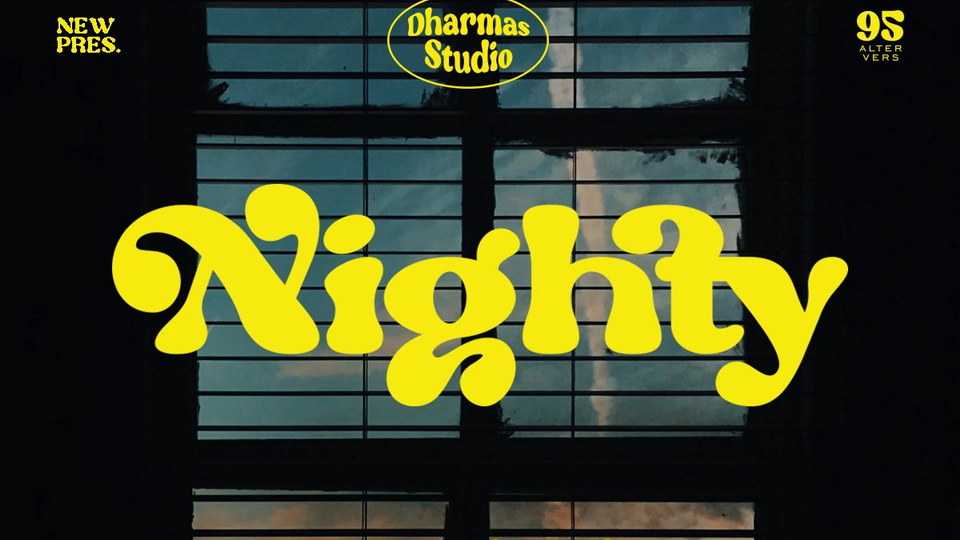
Download Nighty font, a display typeface that says we’re here to nostalgia! Inspired by vintage magazine, Nighty brings back the 70s vibes with groovy, retro and unique typeface.